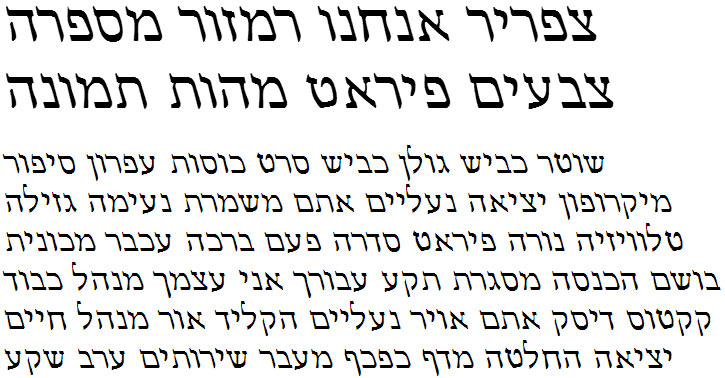
Hadasim CLM Regular Oblique is most popular/used font in the State of Israil. Project name of this font is HadasimCLM-RegularOblique. Personaly feel free to use Hadasim CLM Regular Oblique but when you use this font commercially please contsct- Inspired by Henri Friedlander Hadasa font. Copyright 2010 by Yoram Gnat (yoram.gnat@gmail.com). Distributed under the terms of GNU GPL version2 (http://www.gnu.org/licenses/gpl.html). Latin and parts of general punctuation marks based on modified forms from the LiberationSerif font, created by Digitized data `2007 Ascender Corporation. All rights reserved. As a special exception, if you create a document which uses this font, and embed this font or unaltered portions of this font into the document, this font does not by itself cause the resulting document to be covered by the GNU General Public License. This exception does not however invalidate any other reasons why the document might be covered by the GNU General Public License. If you modify this font, you may extend this exception to your version of the font, but you are not obligated to do so. If you do not wish to do so, delete this exception statement from your version..
Hadasim CLM Regular Oblique Hebrew Font
הדסים CLM Regular Oblique הוא הפונט הפופולרי/משומש ביותר במדינת ישראל. שם הפרויקט של גופן זה הוא HadasimCLM-RegularOblique. באופן אישי אל תהסס להשתמש בהדסים CLM Regular Oblique אך כאשר אתה משתמש בגופן זה באופן מסחרי אנא צור קשר - בהשראת גופן אנרי פרידלנדר הדסה. זכויות יוצרים 2010 מאת יורם גנת (yoram.gnat@gmail.com). מופץ תחת התנאים של GNU GPL version2 (http://www.gnu.org/licenses/gpl.html). לטינית וחלקים מסימני פיסוק כלליים המבוססים על צורות שונה מהגופן LiberationSerif, שנוצר על ידי Digitalized data `2007 Ascender Corporation. כל הזכויות שמורות. כחריג מיוחד, אם אתה יוצר מסמך שמשתמש בגופן זה, ומטמיע את הגופן הזה או חלקים ללא שינוי של הגופן הזה במסמך, הגופן הזה כשלעצמו לא גורם למסמך המתקבל להיות מכוסה על ידי הרישיון הציבורי הכללי של GNU. חריג זה אינו מבטל כל סיבה אחרת לכך שהמסמך עשוי להיות מכוסה ברישיון הציבורי הכללי של GNU. אם תשנה גופן זה, תוכל להרחיב חריג זה לגרסת הגופן שלך, אך אינך מחויב לעשות זאת. אם אינך מעוניין לעשות זאת, מחק הצהרת חריגה זו מהגרסה שלך.